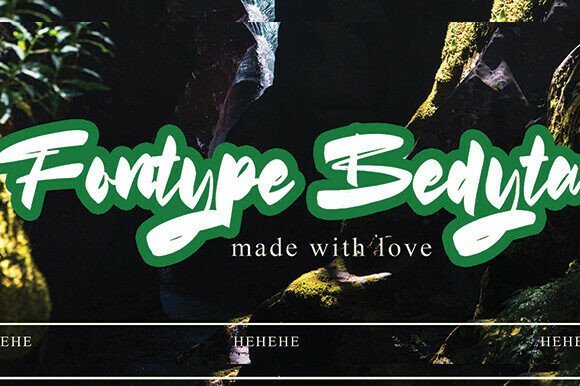
The Perfect Brush Stroke: Unlocking the Power of Bedyta Font
Have you ever been stuck on a design project, searching for that one font that captures the essence of your brand? The moment when the perfect combination of style, personality, and impact comes together is a truly magical one. It’s a feeling that can make all the difference in elevating your work and taking it to the next level.
Bedyta Font is a game-changer in this department. This bold, energetic, and contemporary script font is designed to make a statement. With its thick, brush-style strokes and smooth, flowing motion, it’s the perfect choice for modern branding. From lifestyle logos to creative packaging, Bedyta Font is an impactful choice that will leave a lasting impression. For designers, this versatile font is a valuable tool that can help bring their vision to life.
Bedyta Font Key Features
- Unique Characteristics: Distinctive, hand-drawn style with subtle texture and imperfections, reminiscent of traditional lettering
Bedyta Font Review
I recently had the chance to work with the Bedyta Font, and I must say it’s a unique and interesting addition to my design toolkit. Here are some of my thoughts:
- ✨ Elegant script: The Bedyta Font has a beautiful, flowing script that’s perfect for adding a touch of elegance to any design.
- ✨ High-quality rendering: The font renders well at various sizes and resolutions, making it a great choice for both digital and print designs.
- ✨ Versatile: The Bedyta Font is suitable for a wide range of design projects, from wedding invitations to business cards and beyond.
- ⚠️ Limited character set: The Bedyta Font has a relatively small character set, which may not be suitable for projects that require a wide range of languages or special characters.
- ⚠️ Not ideal for large blocks of text: Due to its script nature, the Bedyta Font is best suited for short quotes, headings, and other short text elements.
The Bedyta Font is a beautiful and elegant addition to any designer’s toolkit. While it may have some limitations, its unique script style and high-quality rendering make it a great choice for a variety of design projects.
Getting the Most Out of Bedyta Font
To get the most out of Bedyta Font, use it for titles and headings in designs, as its unique style and flair make it perfect for grabbing attention.
Bedyta Font is commonly used for:
– Titles and headings
– Creative projects and designs
– Any project where a unique, eye-catching font is desired
Alternatives to Bedyta Font for Designers
Oswald is a sans-serif font designed by Vernon Adams, suitable for headings and titles. It’s a great alternative for Bedyta Font when you need a clean and modern look. Oswald has a similar geometric feel, but with a more condensed and angular design.
Montserrat is a sans-serif font designed by Julieta Ulanovsky, ideal for body text and paragraphs. It’s a good choice when you need a font that’s similar to Bedyta Font but with a more humanist feel. Montserrat has a slightly more rounded design and a larger x-height, making it more readable.
Merriweather is a serif font designed by Eben Sorkin, suitable for body text and paragraphs. It’s a great alternative for Bedyta Font when you need a font that’s more traditional and elegant. Merriweather has a similar classic feel, but with a more refined and nuanced design.
Playfair Display is a serif font designed by Claus Eggers Sørensen, ideal for headings and titles. It’s a good choice when you need a font that’s similar to Bedyta Font but with a more luxurious and ornate feel. Playfair Display has a similar elegant design, but with a more intricate and decorative flair.
Projects Featuring Bedyta Font
The Whimsical Travel Journal is a unique and personalized travel companion that combines the Bedyta Font with hand-drawn illustrations and vintage maps.